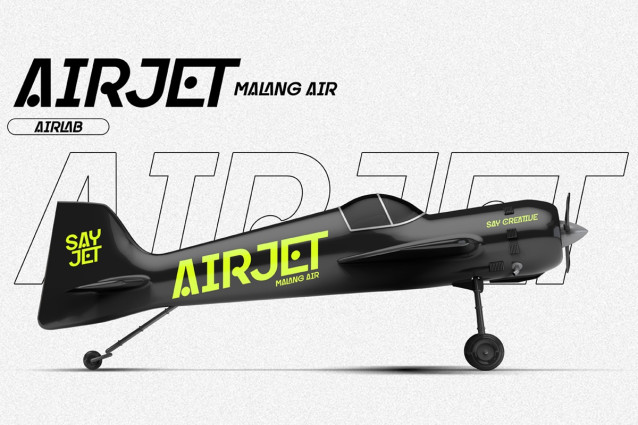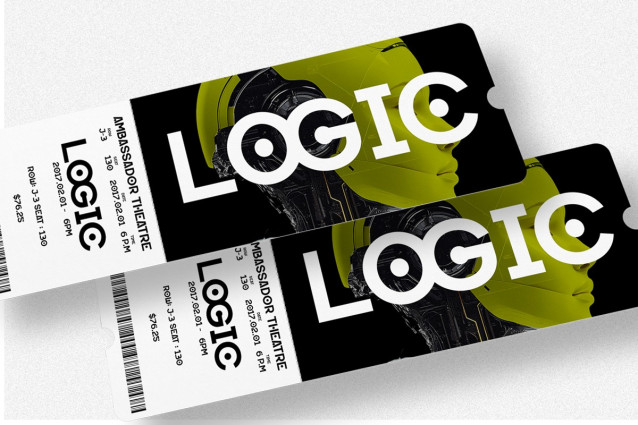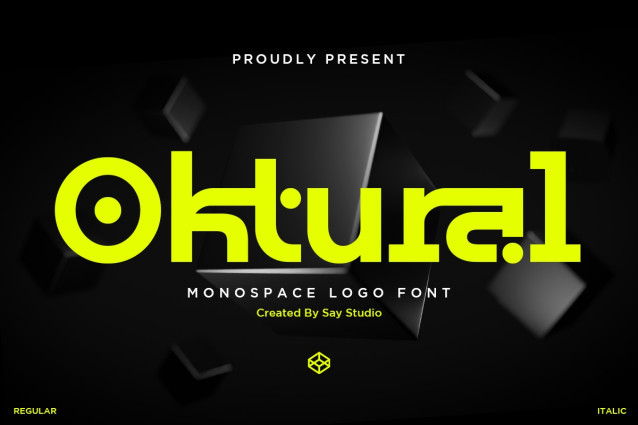
Oktural – Futuristic Monospace Logo Font
Oktural is a futuristic monospace logo font crafted for modern brands that demand precision, innovation, and distinctive visual identity. Built with geometric construction and clean modular letterforms, Oktural delivers a bold contemporary look that feels both technical and memorable. Its unique character shapes create an eye-catching appearance while maintaining excellent readability for display applications.